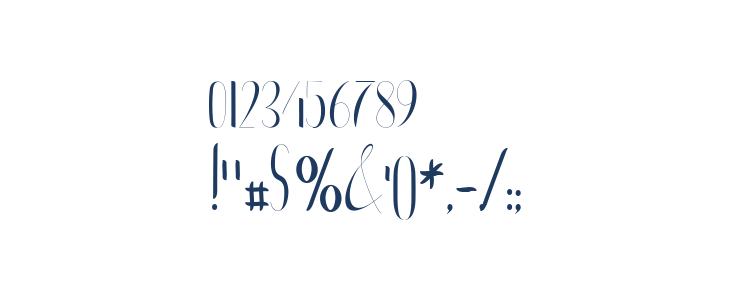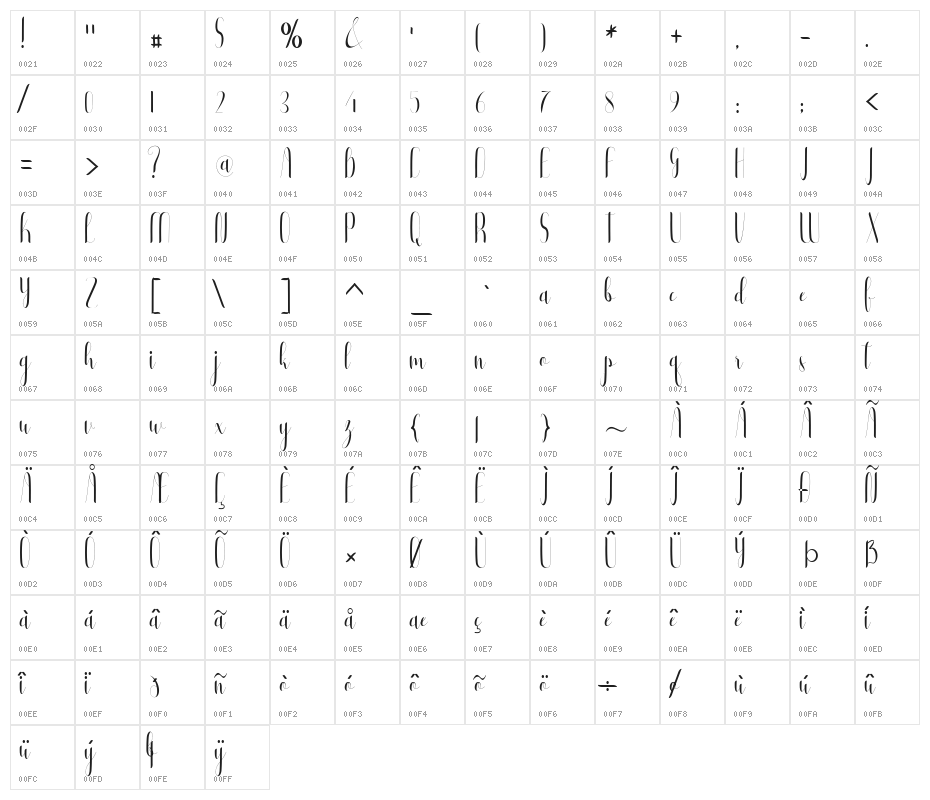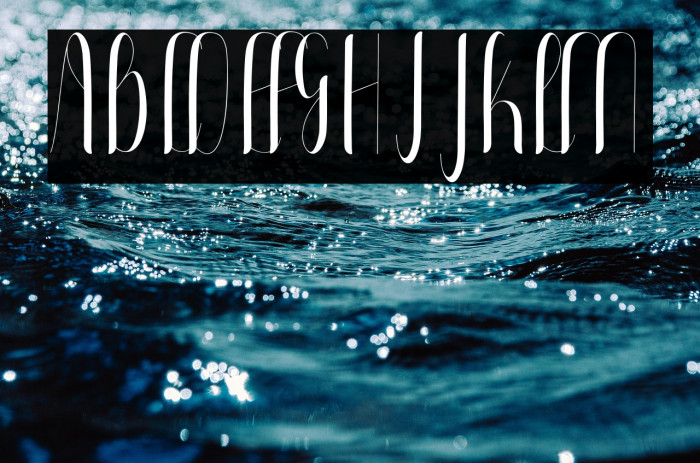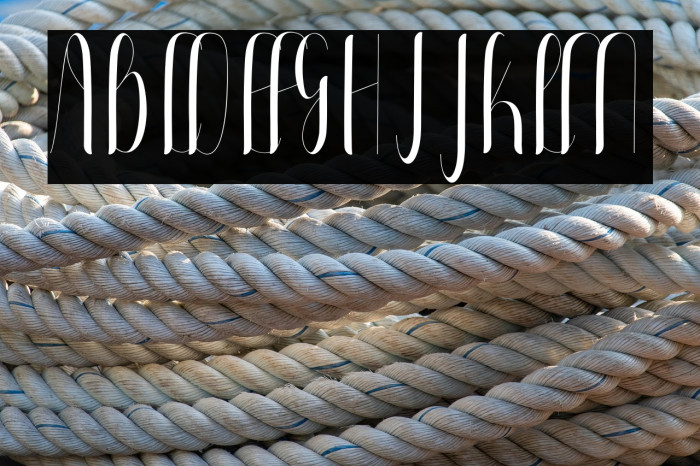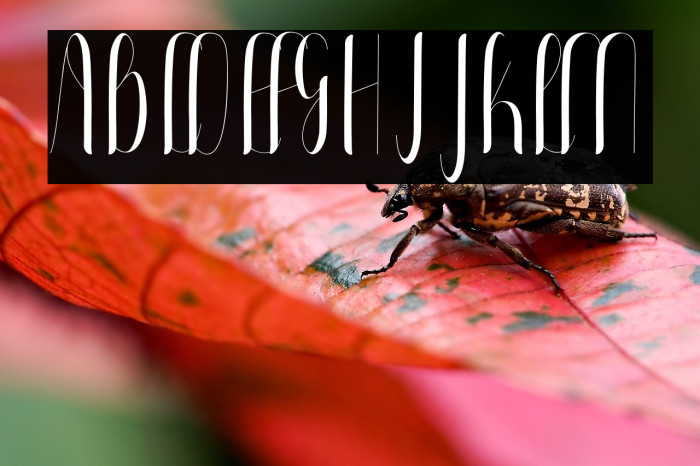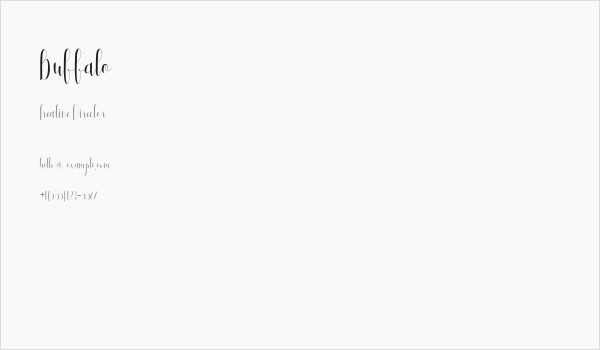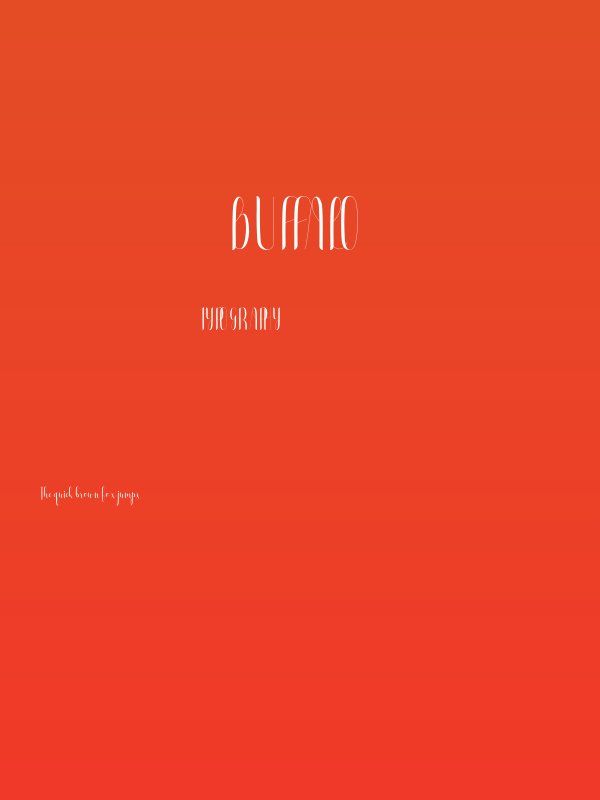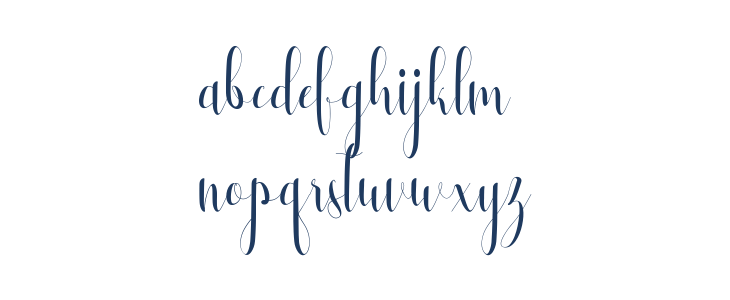
Buffalo Font
Buffalo Description
This font features an elegant and sophisticated script style with high contrast between thick and thin strokes. The uppercase letters are tall and slender, with graceful curves and loops that give a sense of fluidity and movement. The lowercase letters maintain a consistent style, with a slightly more compact form, enhancing readability while preserving the overall aesthetic. The numerals are uniquely styled, matching the elegance of the alphabet characters, and the special characters are designed to complement the font's flowing nature. This font is perfect for projects that require a touch of class and refinement.
| Proposed Projects | Ideal for wedding invitations, luxury branding, elegant packaging, and high-end editorial design. |